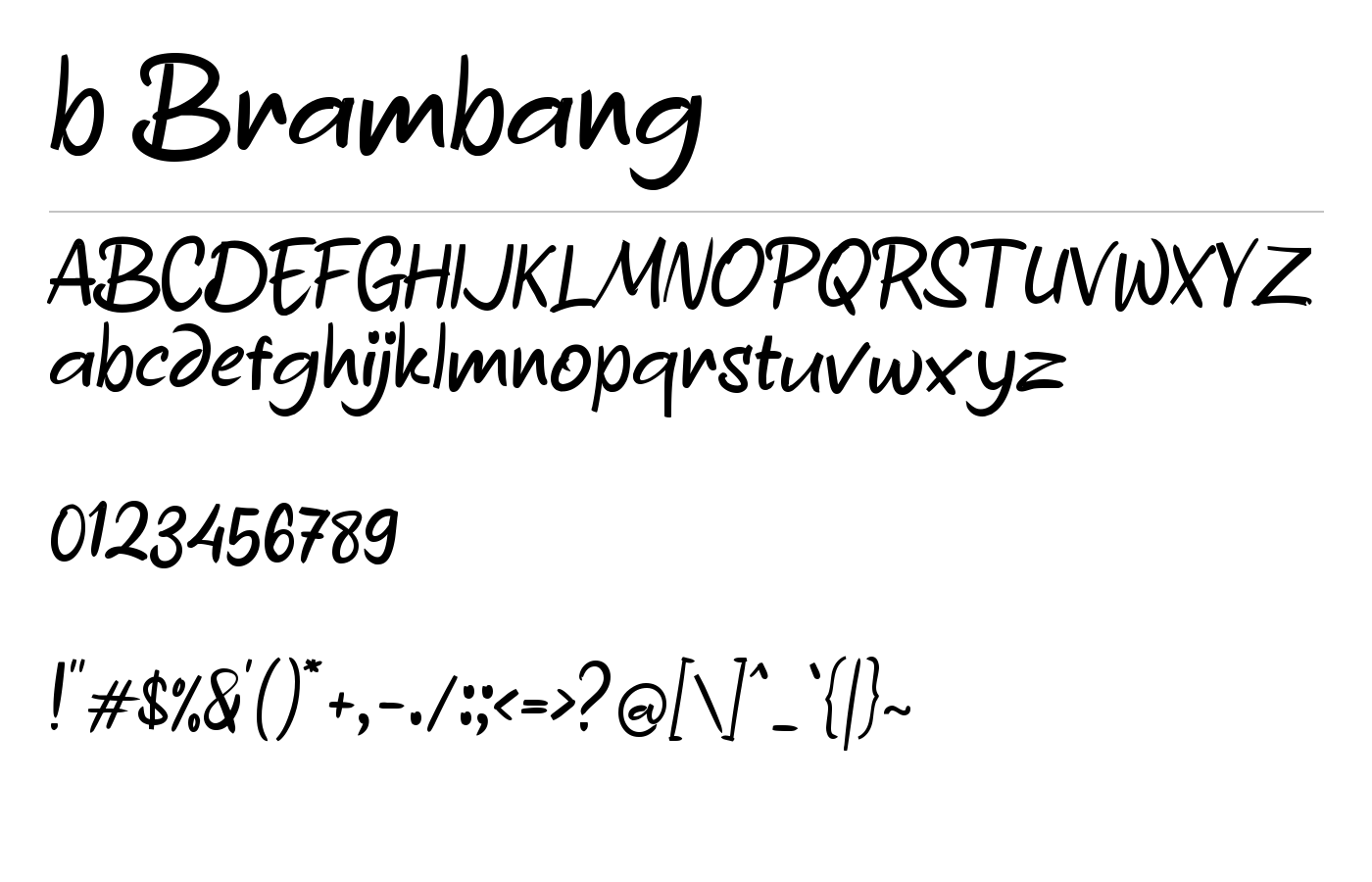
b Brambang is a playful and casual handwritten script font with a lively, informal feel. Its upright, slightly varied stroke width and rounded, friendly letterforms make it ideal for personal projects, creative branding, and approachable design work. This font works well in headlines and short text where a warm, inviting touch is desired.
b Brambang Font
About b Brambang Font